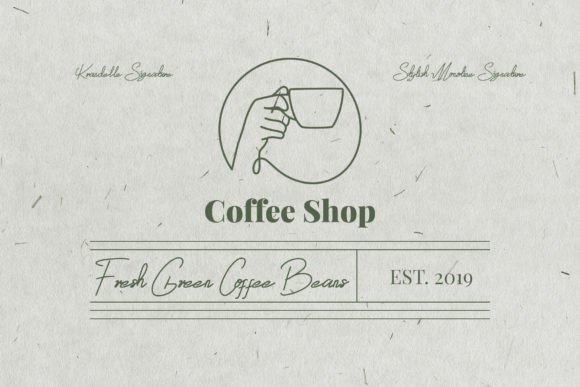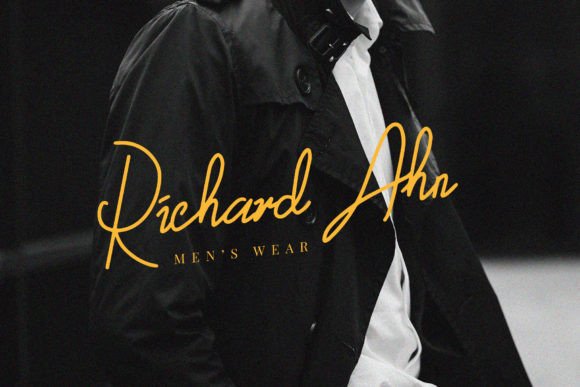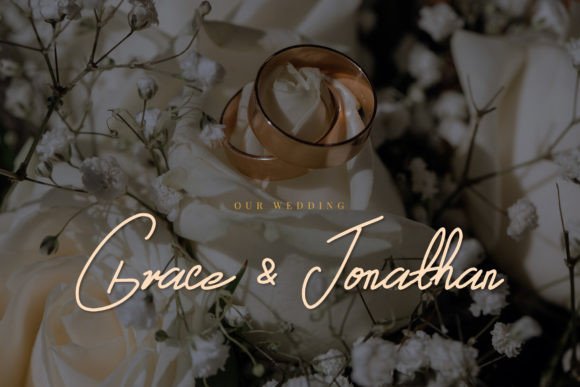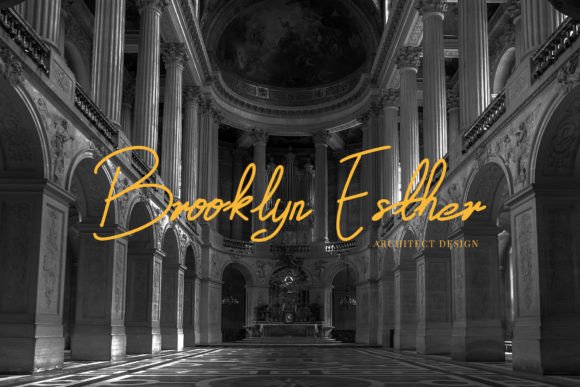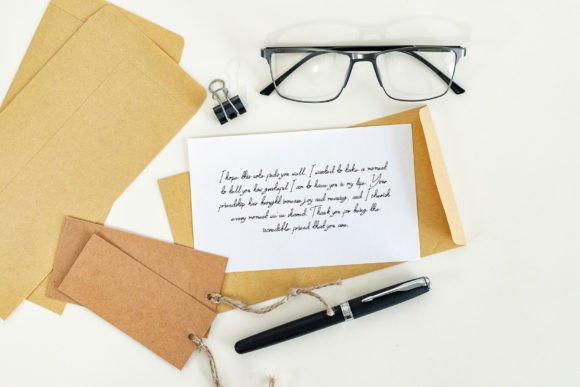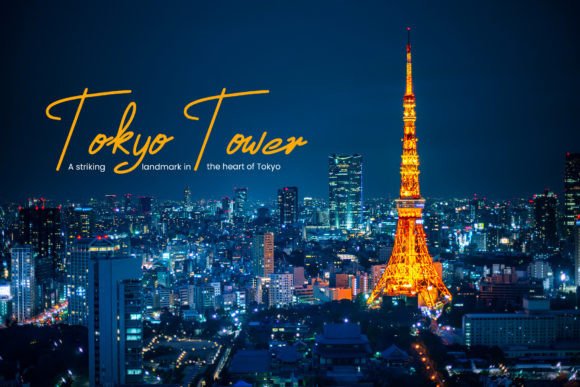
Introduction to Krandelle Signature Font
Krandelle Signature, a chic monoline signature font, exudes an air of elegance and refinement.
With its graceful, continuous lines and meticulous craftsmanship, this font effortlessly embodies a sense of timeless sophistication Every character in Krandelle Signature is meticulously designed to ensure a seamless and harmonious script, making it the perfect choice for elevating invitations, branding materials, and various design projects.
Krandelle Signature Font offers exceptional quality and versatility, making it a valuable addition to your design toolkit. Whether you’re creating for personal projects or commercial use, Krandelle Signature Font delivers professional results.